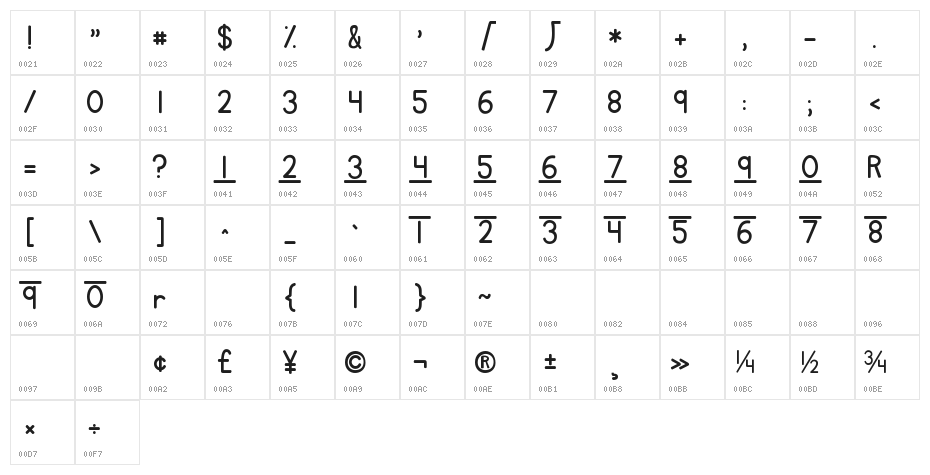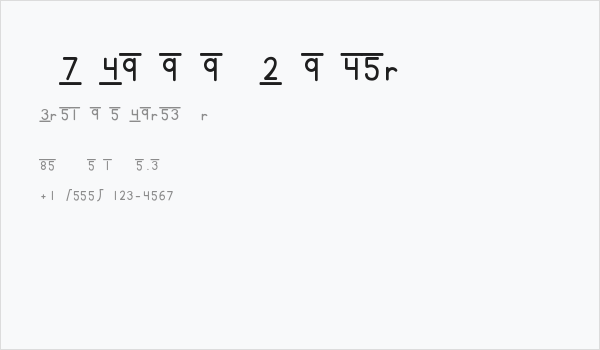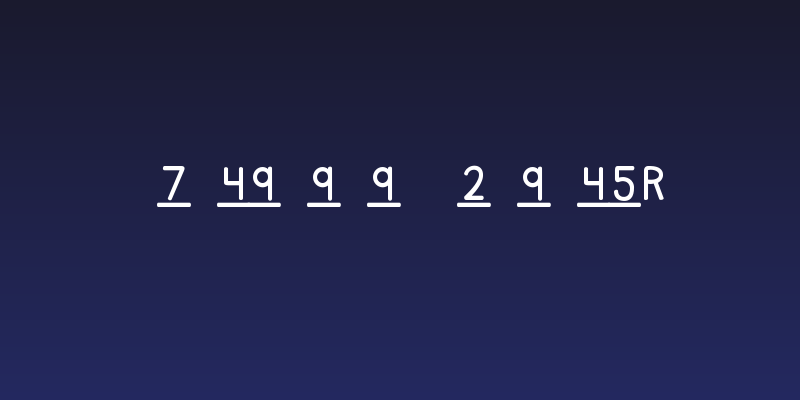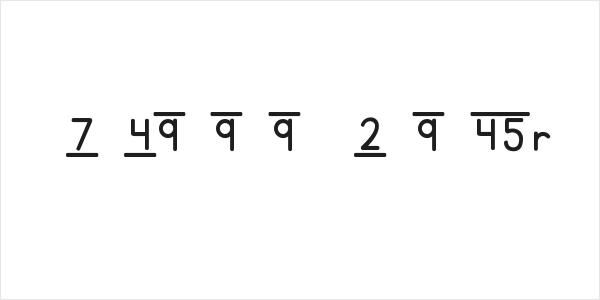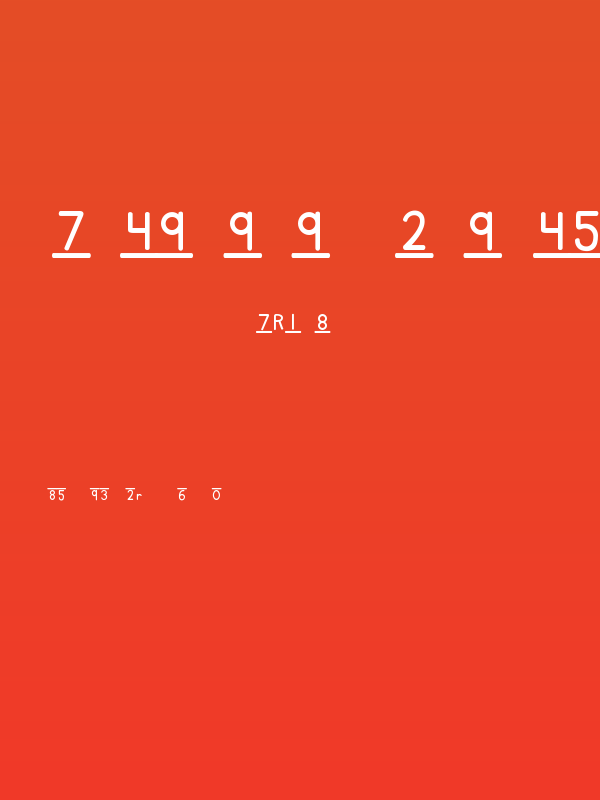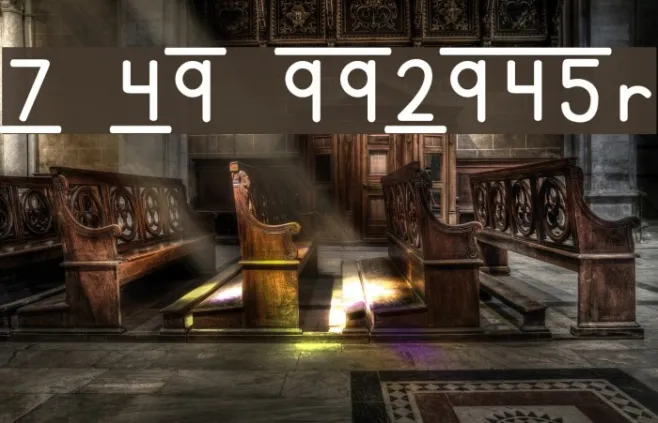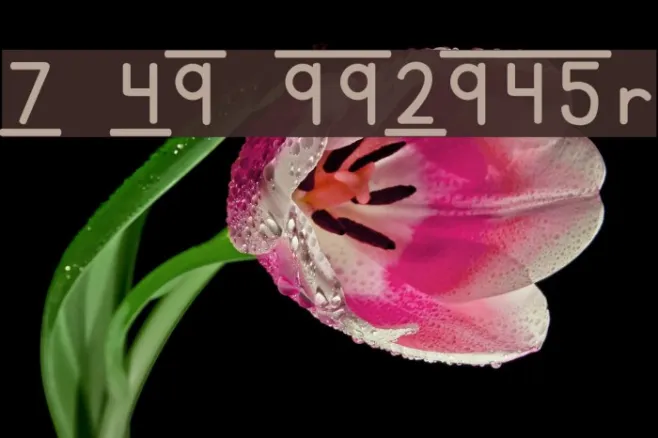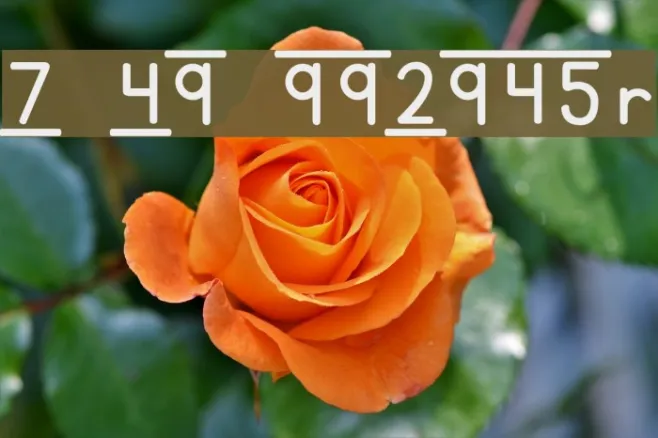
KG DivisionBuilder Font
KG DivisionBuilder Description
This font features a clean and modern design with rounded edges and a uniform stroke width, giving it a friendly and approachable appearance. The characters are evenly spaced, contributing to its readability. The numerals and special characters maintain the same rounded style, ensuring consistency throughout the typeface. The simplicity of the design makes it versatile for various applications, while the rounded forms add a touch of softness and warmth. This font is well-suited for digital and print media, offering clarity and a contemporary feel.
| Proposed Projects | Ideal for children's books, educational materials, websites, and app interfaces. |